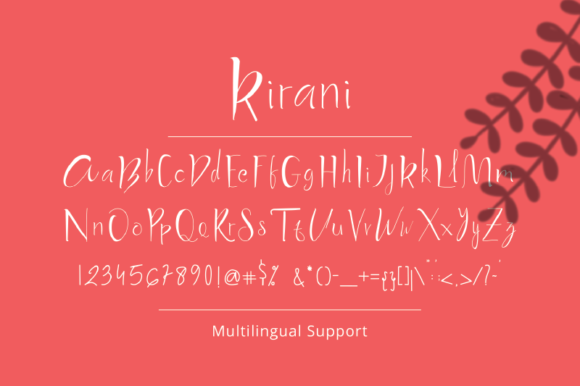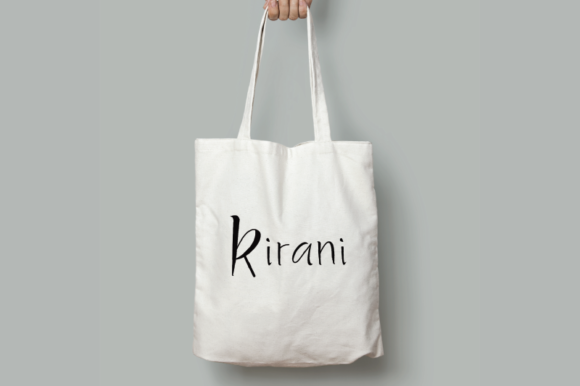
Introduction to Kirani Font
Have you ever found yourself stuck in a creative rut, unable to express the exact feeling you want to convey through your design? The right font can be the missing piece that elevates your project from good to great. That’s where Kirani Font comes in – a cool and fun script with an authentic vibe that’s sure to add a touch of personality to your next creative project.
Key Features of Kirani Font
- High-quality, vector-based font suitable for various creative projects.
- Features a transparent background, making it ideal for designs with complex backgrounds.
- Includes a wide range of characters, including Latin, Cyrillic, and Greek alphabets.
- Designed with a modern aesthetic, making it perfect for contemporary design projects.
Honest Review: Kirani Font
As a designer, I’m always on the lookout for high-quality design resources that can elevate my creative projects. Recently, I stumbled upon the Kirani Font, and I’m excited to share my thoughts on it.
- Unique and elegant design: The Kirani Font has a beautiful, cursive design that adds a touch of sophistication to any project.
- Transparent background: The font’s transparent background allows for seamless integration with other design elements.
- High quality: The font’s high quality is evident in its crisp lines and smooth curves.
- Limited font styles: While the Kirani Font is a beautiful addition to any project, it’s limited to a single font style, which might not be suitable for projects requiring multiple font variations.
- Not suitable for body text: The font’s elegant design makes it better suited for headings and titles rather than body text.
Overall, I’m impressed with the Kirani Font’s high quality and unique design. While it may have some limitations, it’s an excellent resource for designers looking to add a touch of elegance to their creative projects.
How to Use Kirani Font
Kirani Font is ideal for a variety of design projects, including logos, brochures, and business cards. Its transparent background makes it perfect for creating visually appealing designs that stand out from the crowd.
Tips for Getting the Most Out of Kirani Font
To get the most out of Kirani Font, experiment with different font sizes, colors, and combinations. You can also use Kirani Font in combination with other design elements to create a unique and eye-catching design.
Alternatives to Kirani Font
Open Sans is a highly legible and versatile sans-serif font ideal for various creative projects, including digital and print designs. It’s available for free download and offers a high-quality design resource for designers. Open Sans has a transparent background, making it suitable for use on various backgrounds. Compared to Kirani Font, Open Sans is more geometric and modern, making it a great choice for contemporary designs.
Lato is a beautiful and elegant sans-serif font designed for digital use. It’s a free download and can be used for various design projects, including logos, business cards, and websites. Lato has a high-quality design with a transparent background, making it perfect for use on various backgrounds. Compared to Kirani Font, Lato is more refined and sophisticated, making it a great choice for high-end designs.